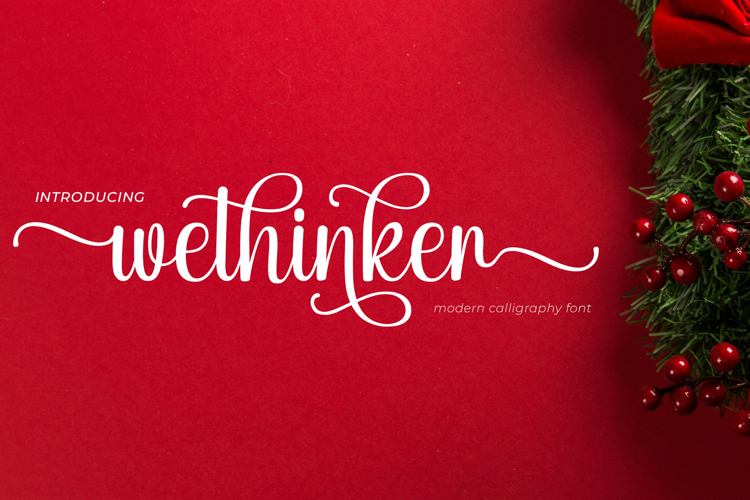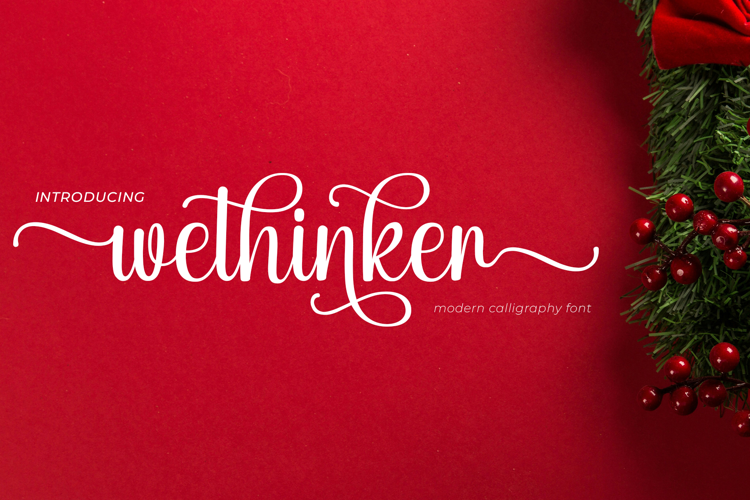
Wethinker is a warm handwritten font designed to bring charm to every celebration. Its gentle curves and friendly strokes make it perfect for Christmas cards, holiday packaging, cozy winter quotes, Valentine’s gifts, wedding crafts, and romantic projects.
Wethinker comes with SS01–SS04 stylistic sets and a collection of playful ligatures, giving you plenty of options to shape your text with personality. Every letter feels handcrafted, making your designs look heartfelt and inviting.
Use Wethinker for greeting cards, stickers, tumblers, tags, social media posts, product labels, and any project that needs a soft handmade touch.